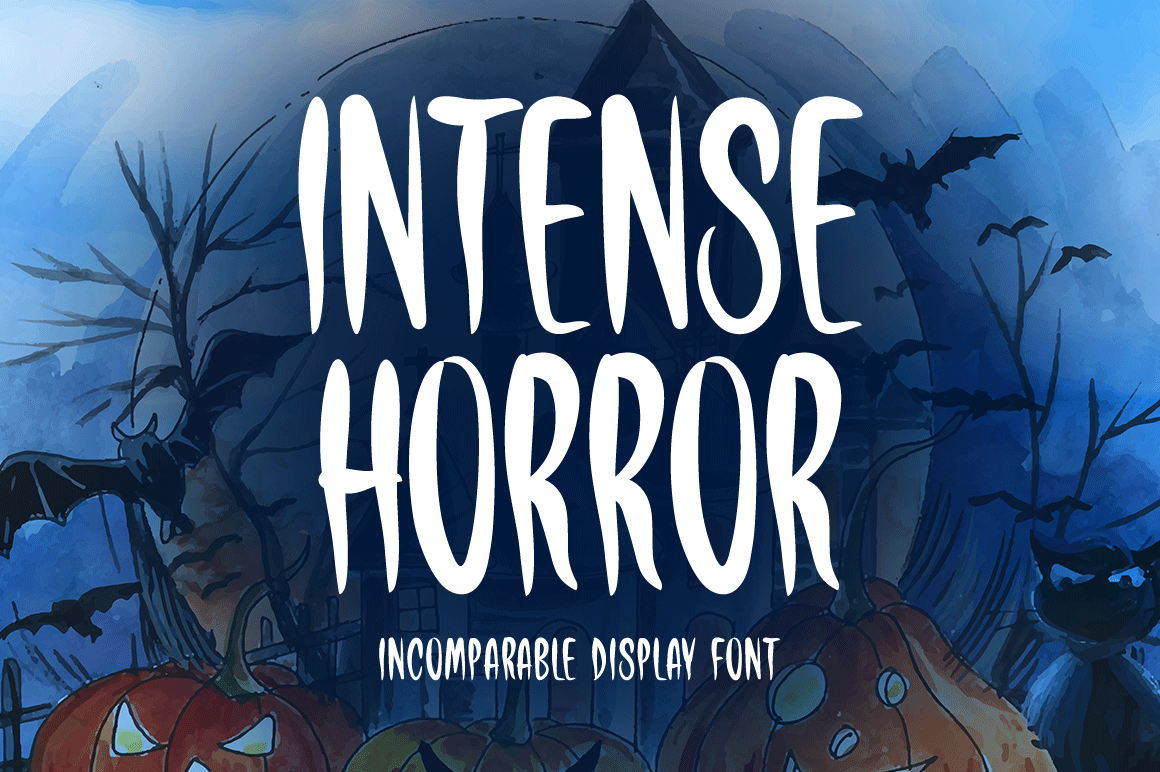
Introducing Intense Horror!
Intense Horror is a cute and casual display font with a Halloween theme. Add this beautiful display font to each of your creative ideas and notice how it makes them stand out!
Includes a range of multilingual support